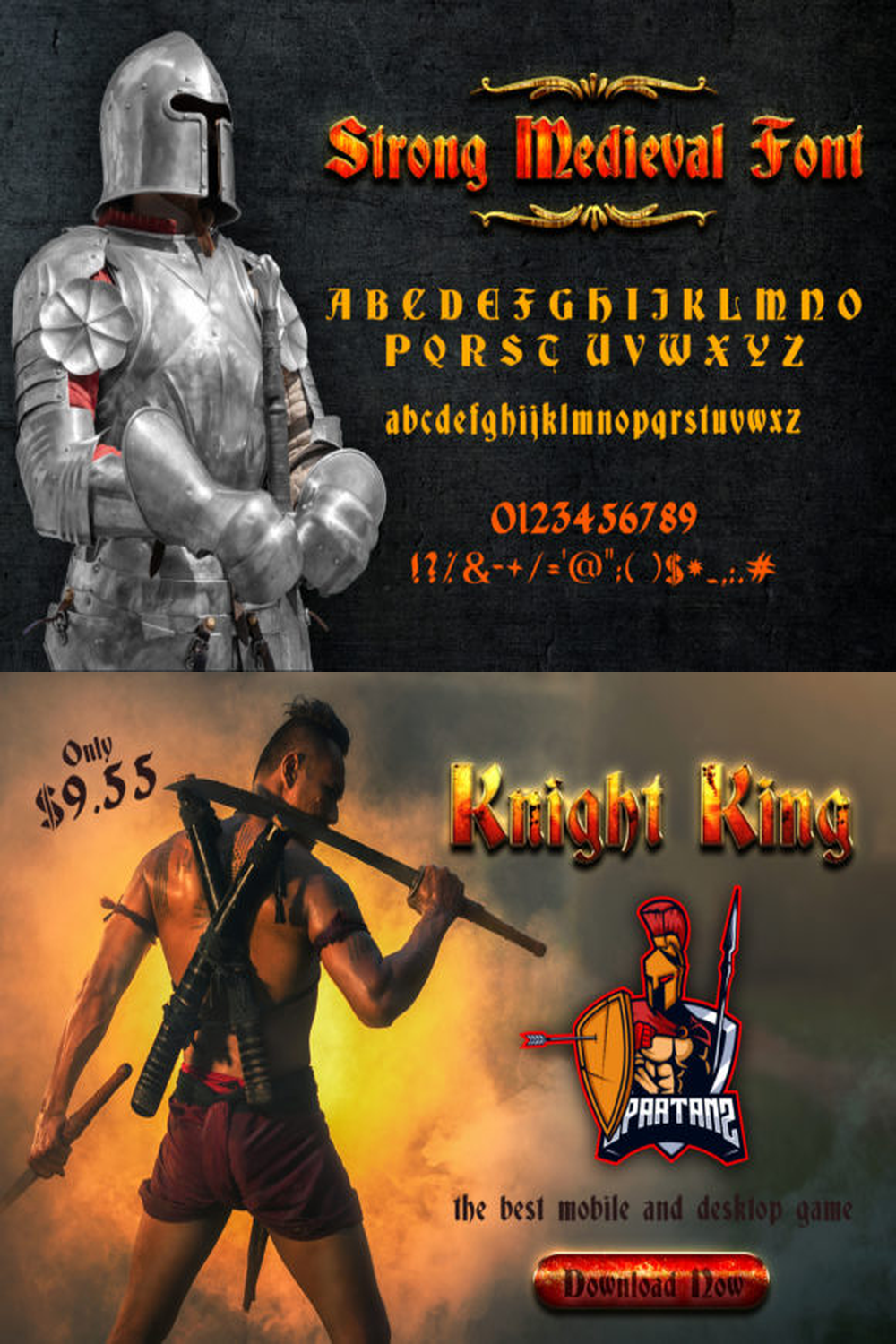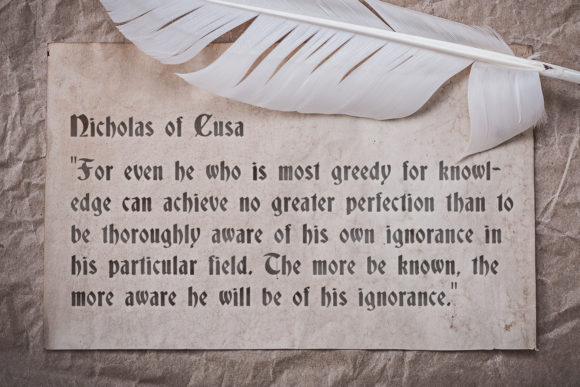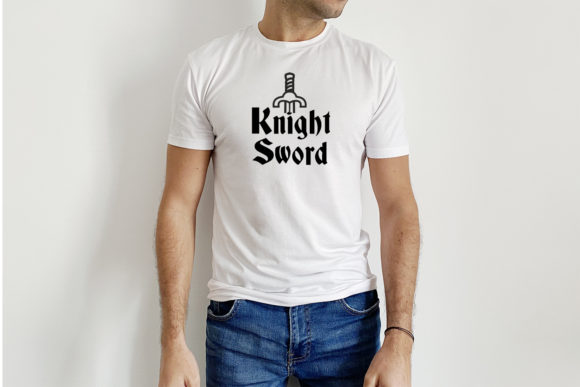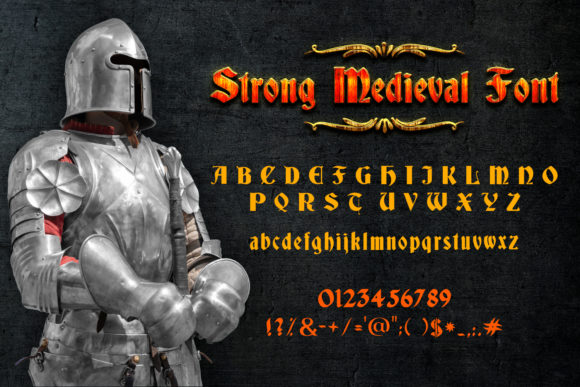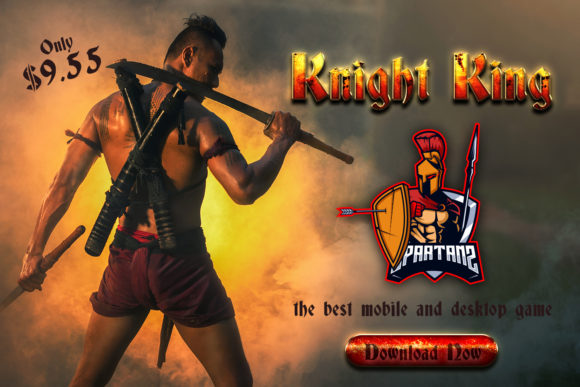
Strong Medieval Font
About the Strong Medieval Font
The Strong Medieval Font is here to transform your projects with its distinctive character and style. Strong Medieval is a bold and enchanting handwritten font. Use to add a unique and medieval touch to your designs!